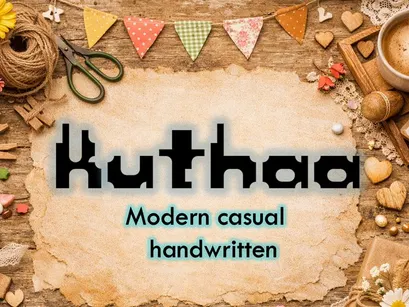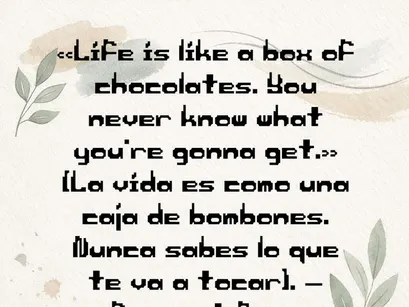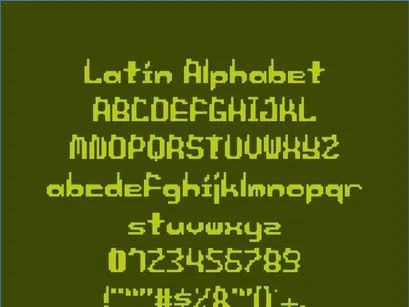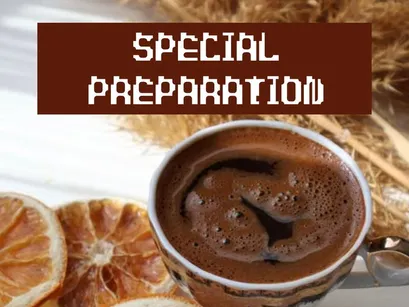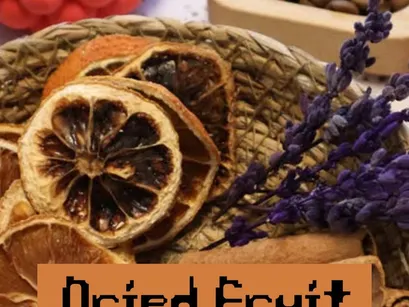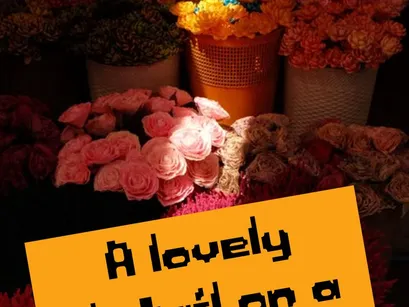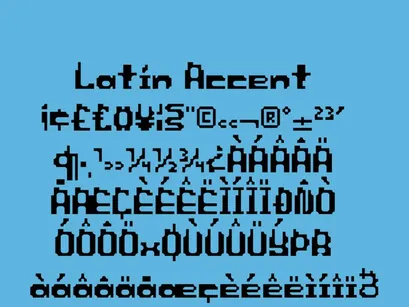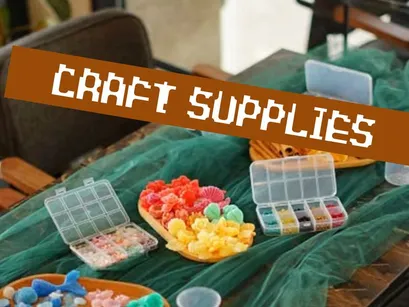
Kuthaa is a modern, casual, handwritten typeface with an artisanal feel and a warm texture. Its firm, compact strokes evoke a rustic, hand-lettered style—ideal for projects aiming to convey authenticity, creativity, and a personal touch.
It is perfect for artisanal labels, planner covers, recipe books, digital design, and natural branding.
It includes support for Latin accents, numbers, and symbols, and is available in TTF format for seamless integration into any design software.